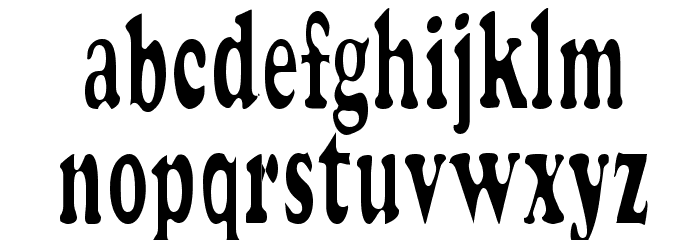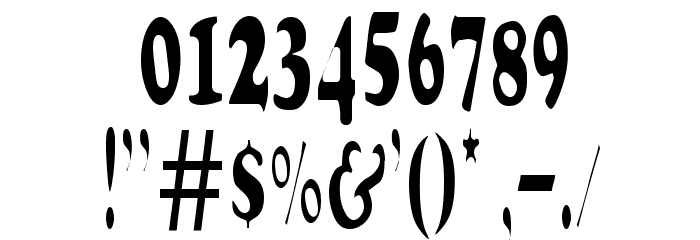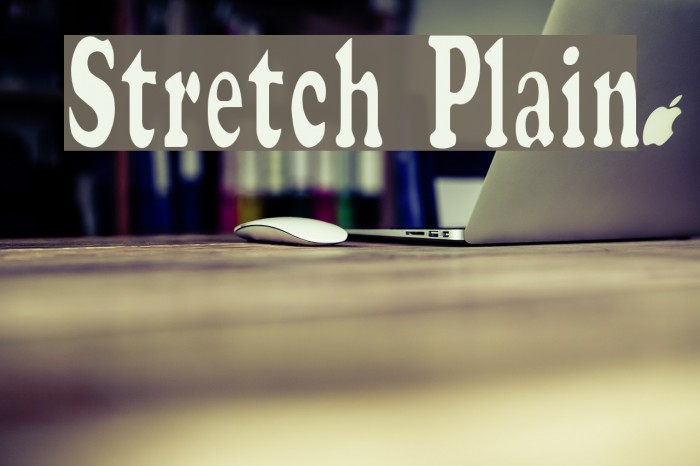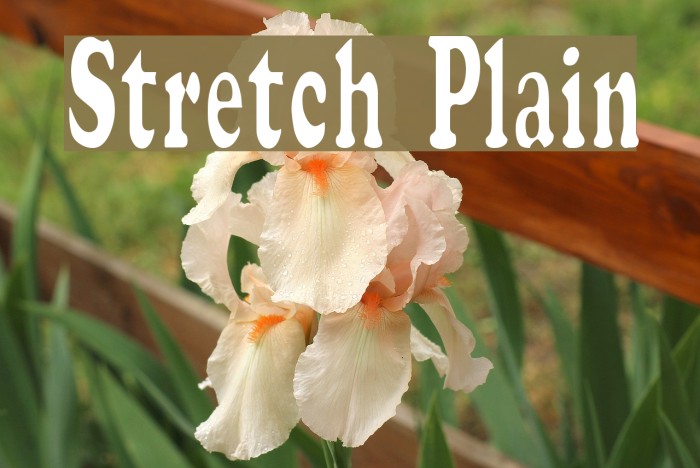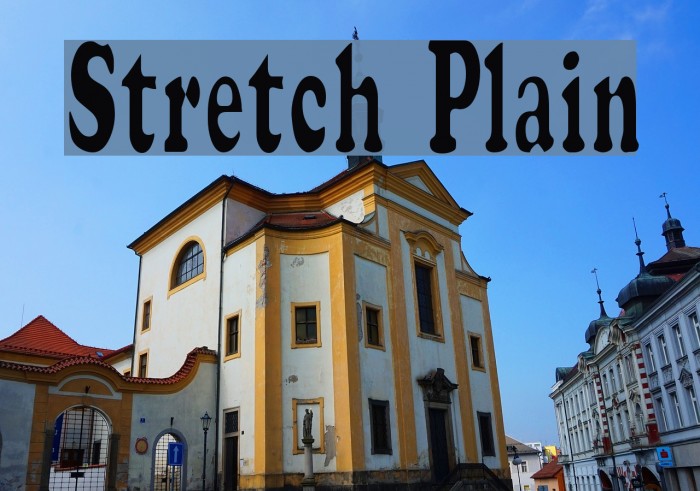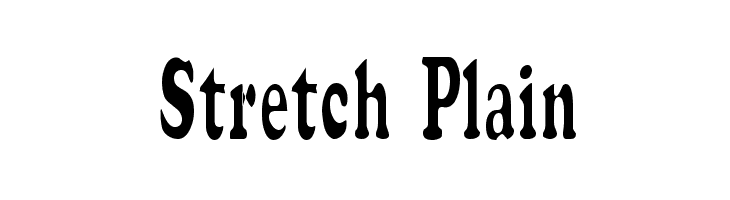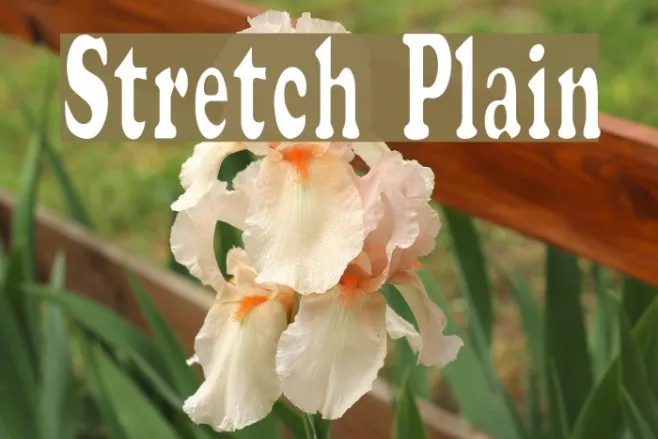
Stretch Plain Font
This font features a bold and playful design with exaggerated curves and a slightly condensed appearance. The characters are thick and robust, giving a strong visual impact. The uppercase letters are particularly striking, with a unique flair that adds personality to the text. The lowercase letters maintain a consistent style, complementing the uppercase with their rounded forms. The numerals are equally bold, ensuring readability and consistency across different uses. Special characters are designed with the same boldness, making them stand out effectively.
A bold and playful font with exaggerated curves and a strong visual impact.
- Proposed Projects: Ideal for posters, headlines, branding, and any project requiring a bold and distinctive typeface.
- Overall Style: Playful and bold
- Use Case: Headlines, Posters, Branding